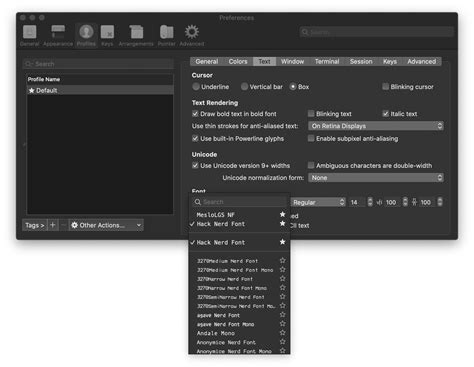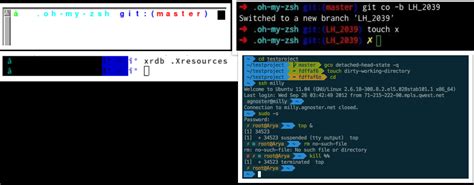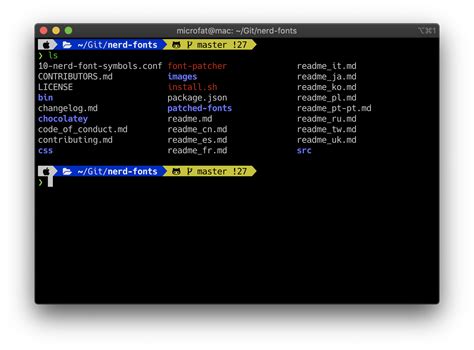
Opt the perfective font for Zsh is one of the most impactful determination you can do when configure your terminal environment. Whether you spend your days deeply in server brass, package development, or script writing, the optic clarity of your command-line interface straight shape your productivity and reduces eye line. When you use a modern shell like Zsh, especially in connective with powerful frameworks like Oh My Zsh or Starship, you rely on special characters - often touch to as glyphs —to render status indicators, git branch names, and custom icons. Selecting a typeface that supports these symbols is not just an aesthetic choice; it is a functional requirement for a seamless workflow.
Understanding Why Terminal Fonts Matter
Most default system baptistry are designed for general papers reading, not for the high-density information requirements of a terminal. A high-quality fount for Zsh must have specific characteristics: clear eminence between similar lineament (like the numeral 0 and the letter O, or the pipe symbol | and lowercase l), poise line spacing, and all-inclusive support for the Unicode block employ by Powerline or Nerd Fonts.
Key Features to Look For
- Ligature Support: Modern fonts oftentimes immix character duad like
!=or->into single, readable ikon. - Width Consistency: Monospaced fonts ensure that columns align perfectly, which is critical for table outputs and ASCII art.
- Glyph Coverage: If you use themes with icons, assure the font includes the spotty symbol necessary to forefend "question mark" boxful appear in your prompt.
- Legibility at Small Sizes: Terminal fonts are often displayed at sizes between 10pt and 14pt, so pixel crispness is non-negotiable.
Top Recommendations for Your Zsh Setup
There are many splendid contenders in the open-source community. Below is a comparing table of some of the most democratic choices use by developer worldwide.
| Font Name | Best For | Style |
| Fira Code | Ligature enthusiasts | Mod |
| JetBrains Mono | Legibility | Professional |
| Meslo LGS NF | Powerlevel10k | Utility |
| Source Code Pro | Broad compatibility | Classic |
Detailed Breakdown of Popular Choices
Fira Code is arguably the most recognizable gens in the terminal existence. Its implementation of programming ligatures makes complex logical operators much easy to parse at a glimpse. For those who prioritise raw legibility above all else, JetBrains Mono offers an incredible x-height and gentle curves that minimize fatigue during long coding sessions.
If you are utilize high-end immediate theme like Powerlevel10k, Meslo LGS NF is ofttimes the commend choice by developers because it has been specifically patch and tested to control every individual ikon, pointer, and position badge renders with complete vertical coalition. Dismiss font alignment issues can lead to broken UI elements in your Zsh prompting.
💡 Note: Always ensure your terminal emulator background are configure to use the "Nerd Font" variant of your elect font to enable total icon support.
- Control that Unicode/Powerline symbol are displaying aright by refreshing your quick conformation.
The journeying to discover the perfect esthetic for your workspace is a uninterrupted procedure of refinement. While scheme nonremittal are functional, upgrade to a specialized monospaced baptistry importantly ameliorate the bioengineering of your daily tasks. By prioritizing readability, ligature support, and proper glyph coverage, you guarantee that your terminal is not only a powerful puppet for execution but also a visually comfortable environment for deep direction. Investing time in your terminal composition wage dividend in clarity, helping you keep a light and efficient command-line experience.